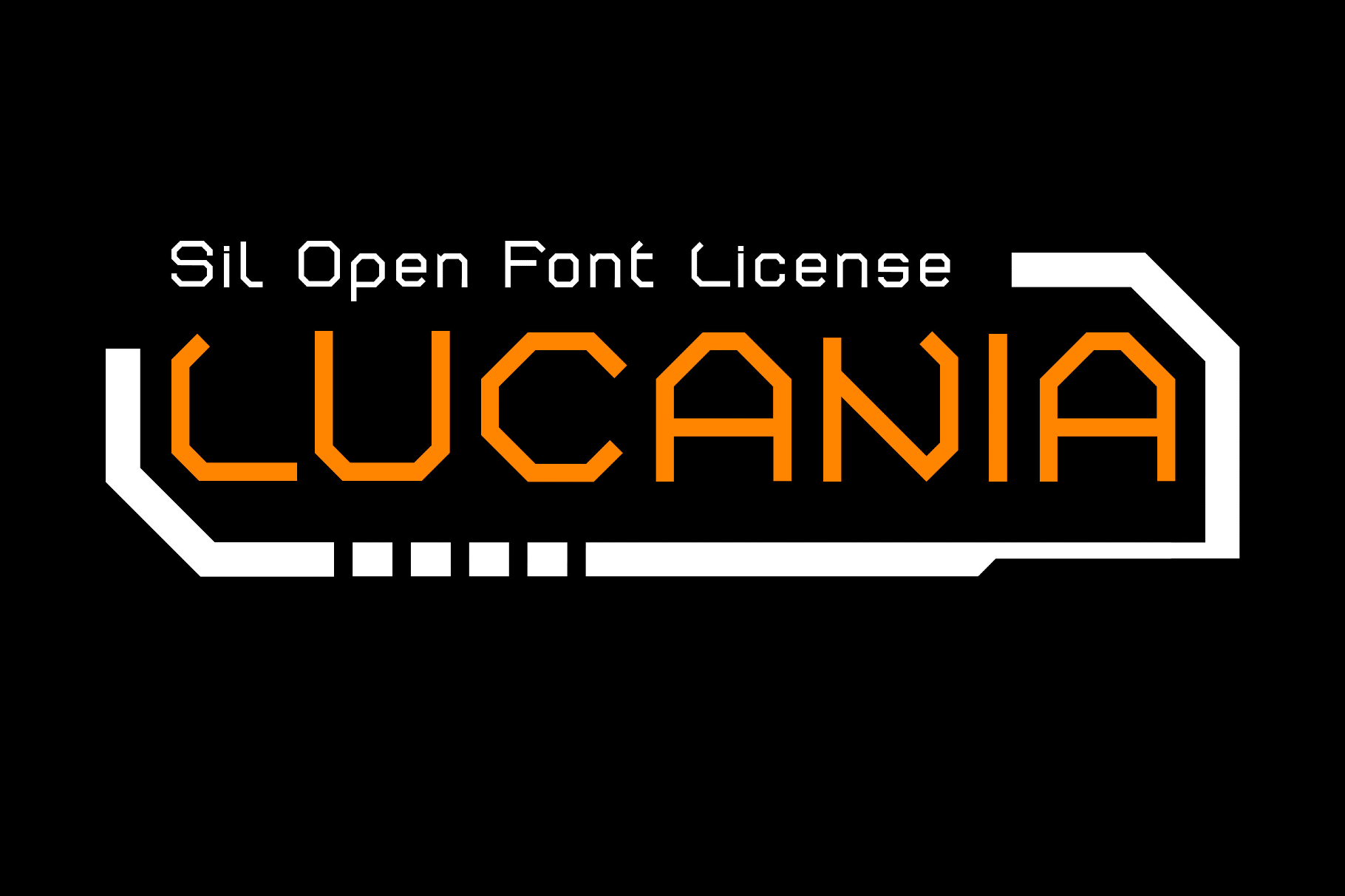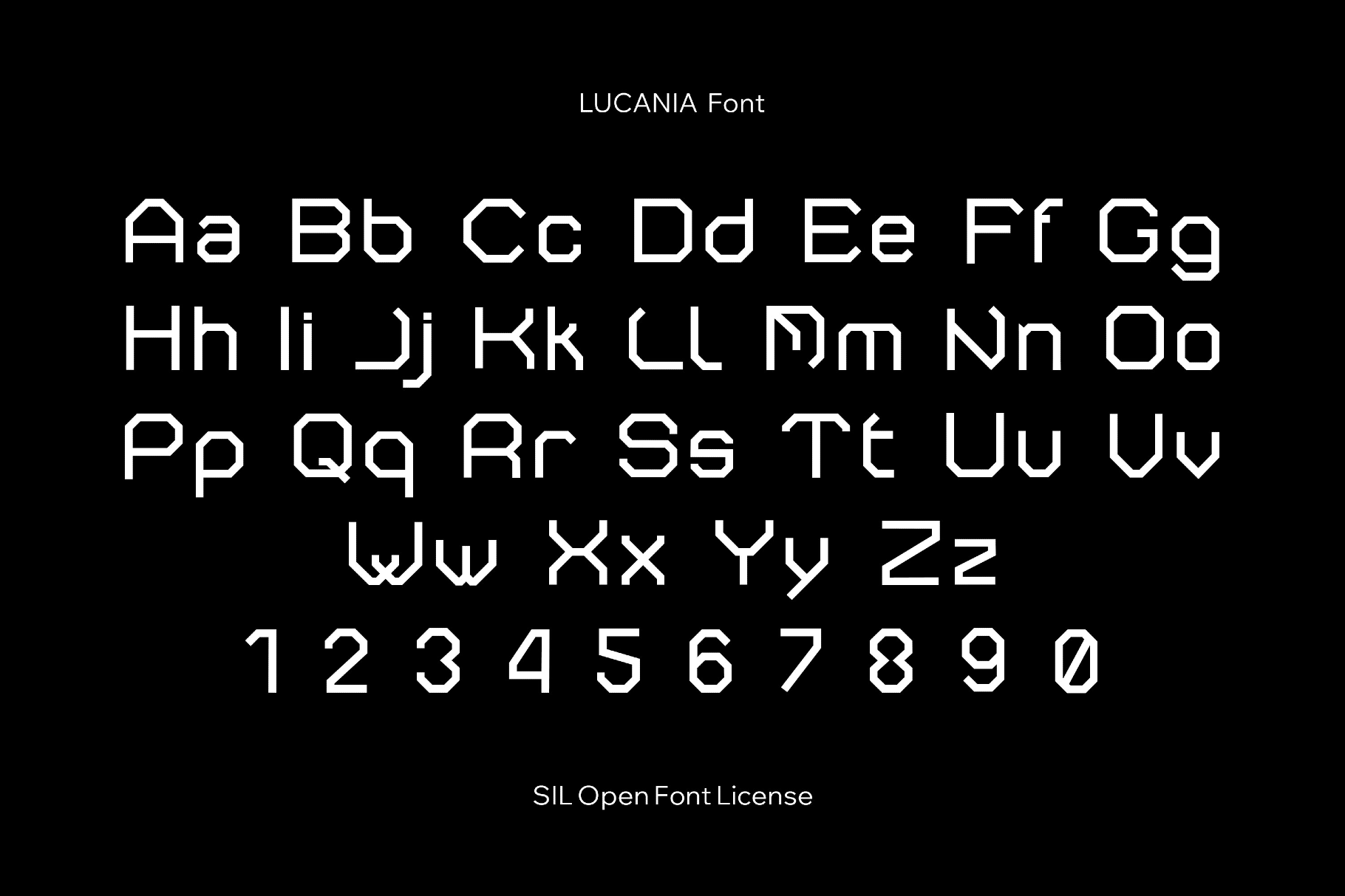
LUCANIA Font
LUCANIA Regular
LUCANIA is a classical font with chiseled proportions, squared counters, and clipped diagonals. The steady monoline weight that recalls Roman inscriptions, Renaissance book typography, and academic publishing traditions. It’s well-suited to book covers, long-form editorial, institutional branding, UI overlays, esports or mech logos, historical themes, formal invitations, museum graphics, and refined packaging copy.